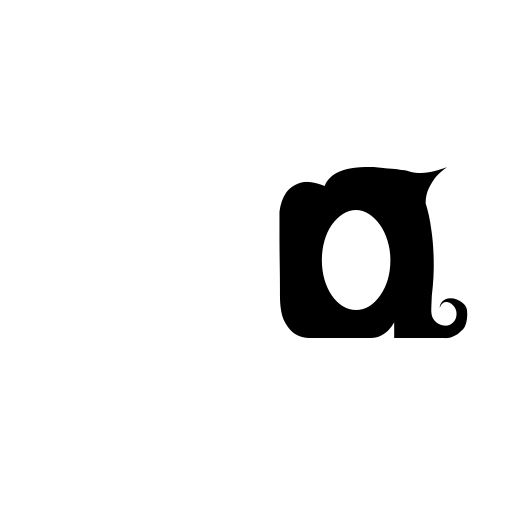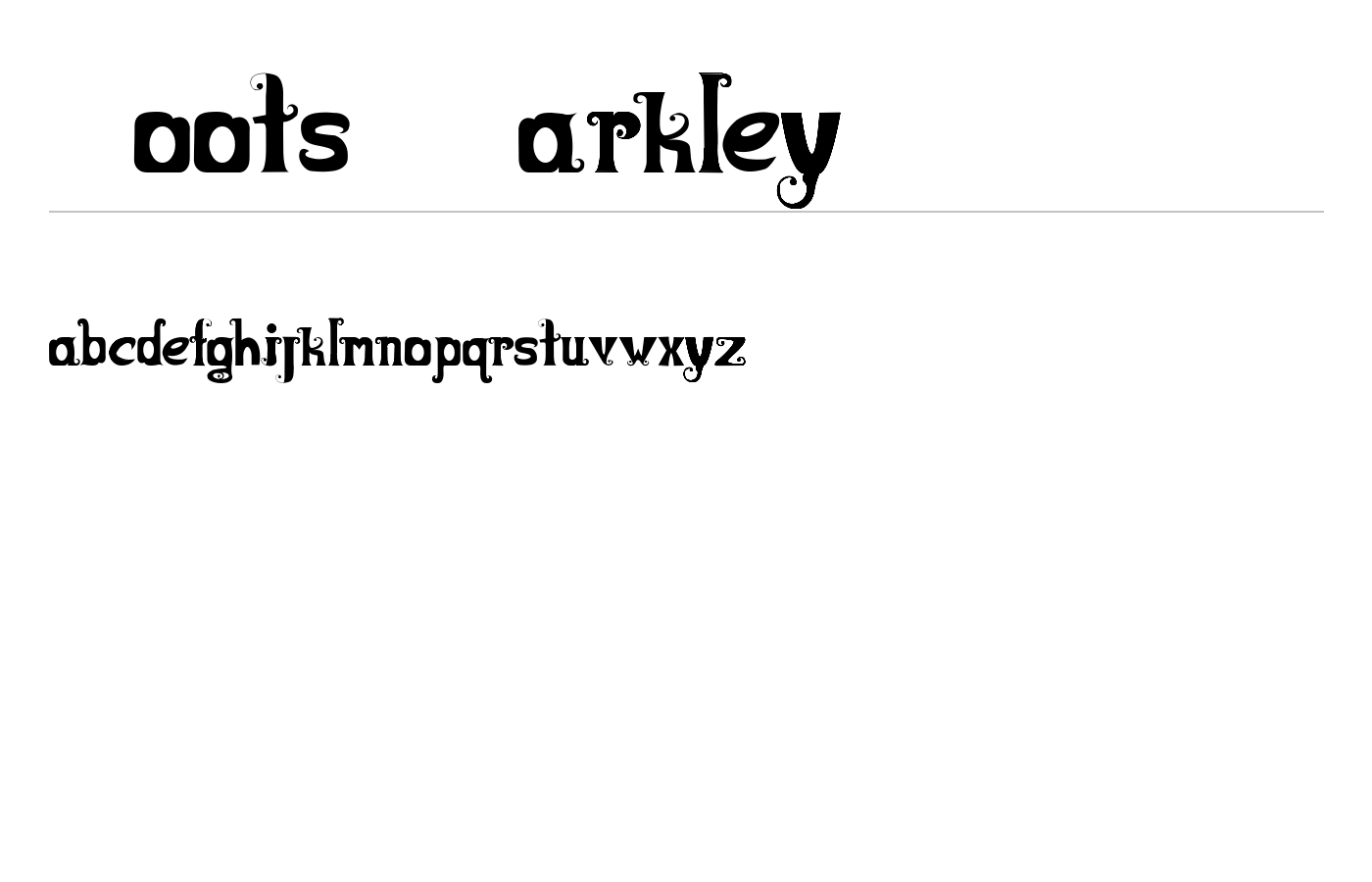
Boots&Barkley is a playful slab serif font with a bold weight and quirky, decorative curls on select characters, creating a fun and whimsical feel. Its sturdy, wide letterforms paired with unique swirls make it ideal for brands or projects aiming for a vintage yet lively personality. This font works best for eye-catching logos, posters, or packaging where a strong, creative statement is desired.
Boots&Barkley Font
About Boots&Barkley Font